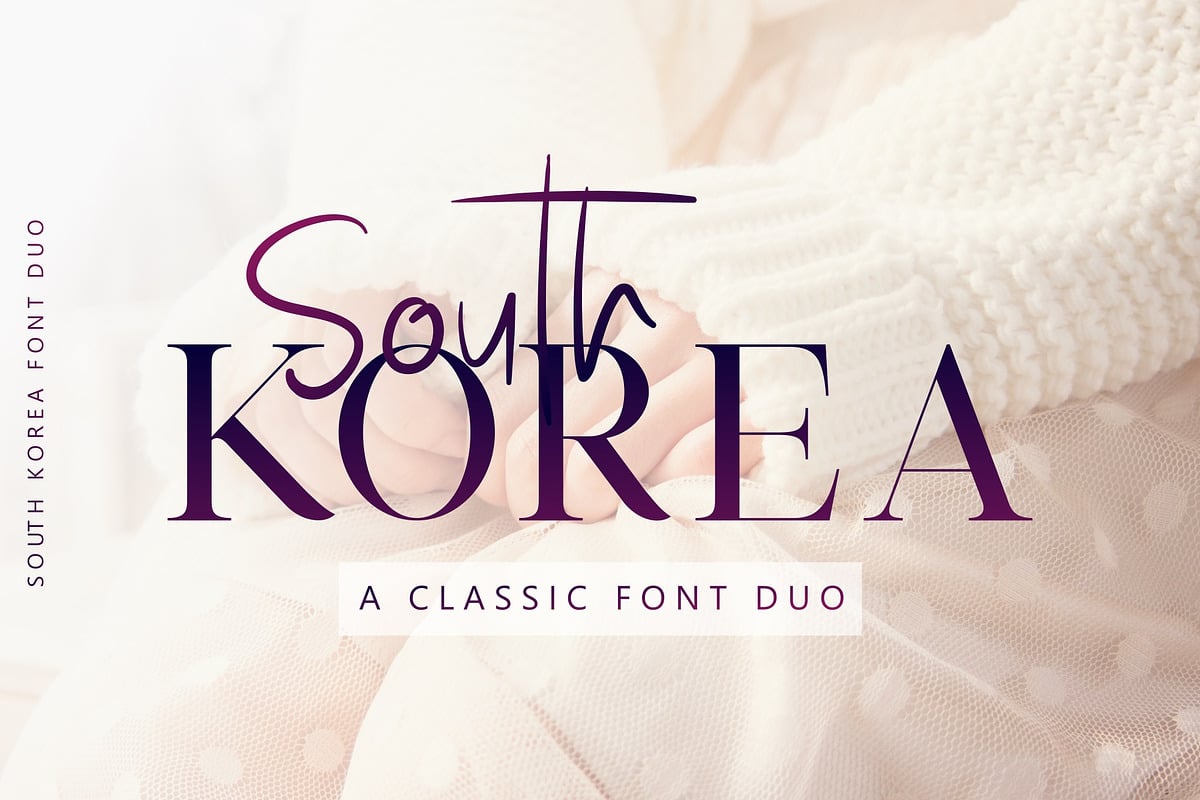
South Korea - Font Duo
Elevate your designs with South Korea — a timeless serif and script font duo built for classic, elegant projects.
Searching for a versatile font that works beautifully across a wide range of design projects? South Korea Font Duo delivers a refined pairing of serif and script styles that bring sophistication and personality to any layout.
Whether you're designing wedding invitations, brand identities, editorial layouts, or packaging, this font duo gives you the flexibility to create something truly beautiful. Now go ahead and get designing!